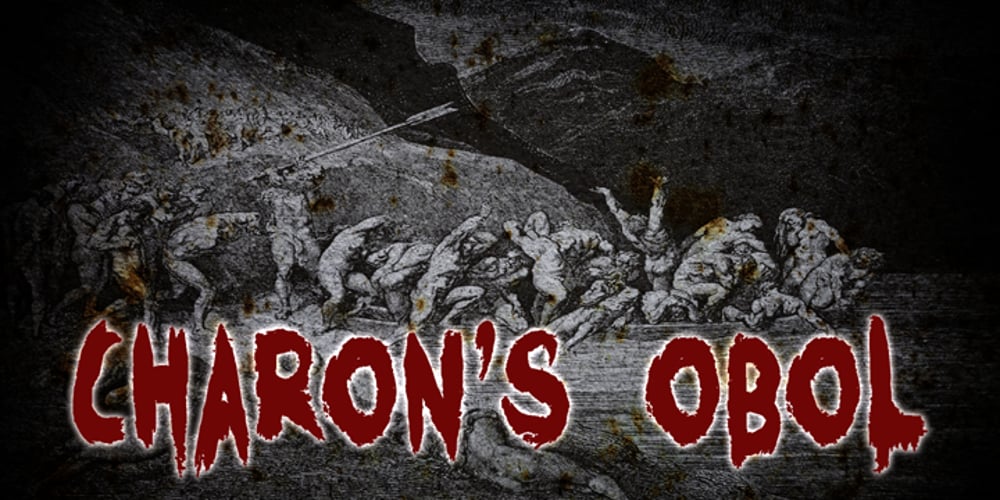
Charons Obol Font Family was designed by David Kerkhoff and published by Hanoded. Charons Obol contains 1 styles and family package options. Charon’s Obol is a scary, brushed typeface. It was created using cheap paint and stiff brushes – hence the rough texture of the glyphs. Using this font will ensure you a safe passage across the river styx – just don’t pay the ferryman until he gets you to the other side…